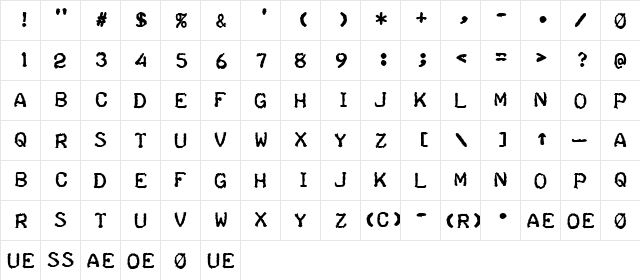
Teleprinter Bold
Design Context for Teleprinter Typeface
Teleprinter offers clean, dependable letterforms without strong stylistic allegiance, making it a practical choice for designers who need flexibility. The heavy weight commands attention and anchors typographic hierarchies.
Pro Tip: Use Teleprinter in both headline and body roles to test its range before committing to a single application.